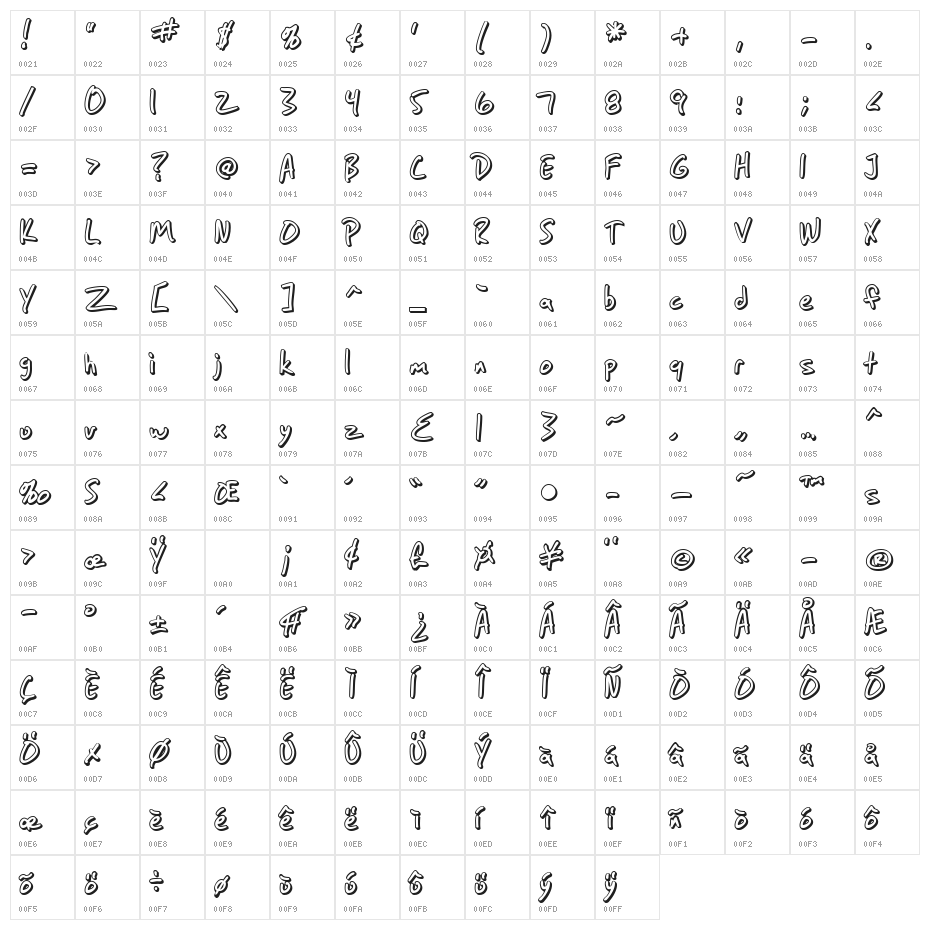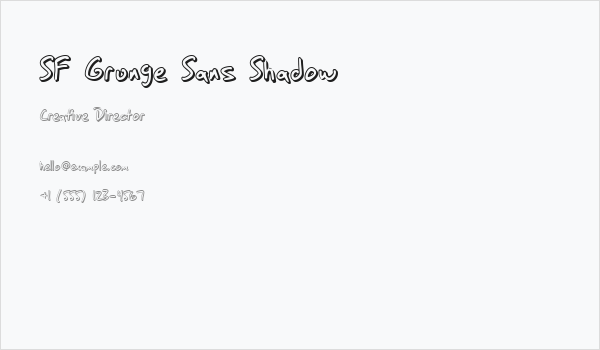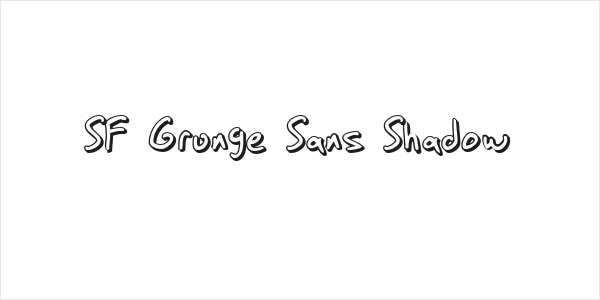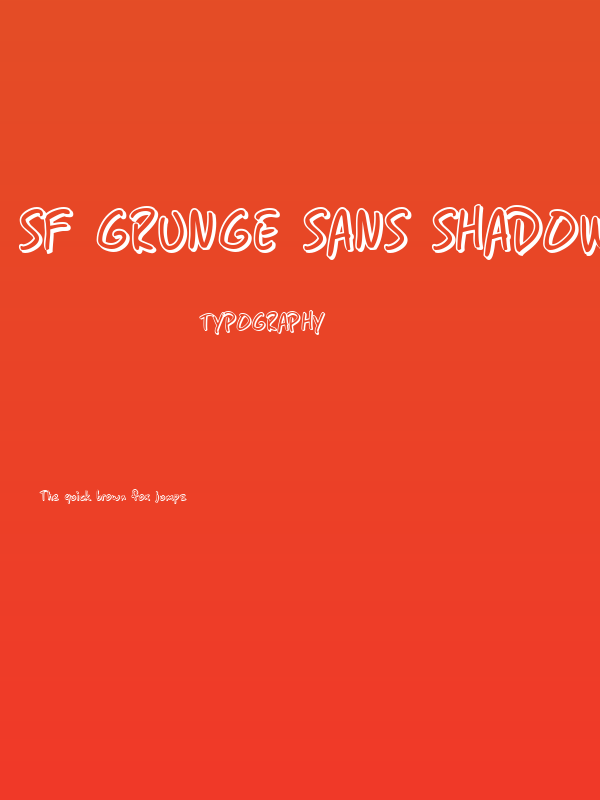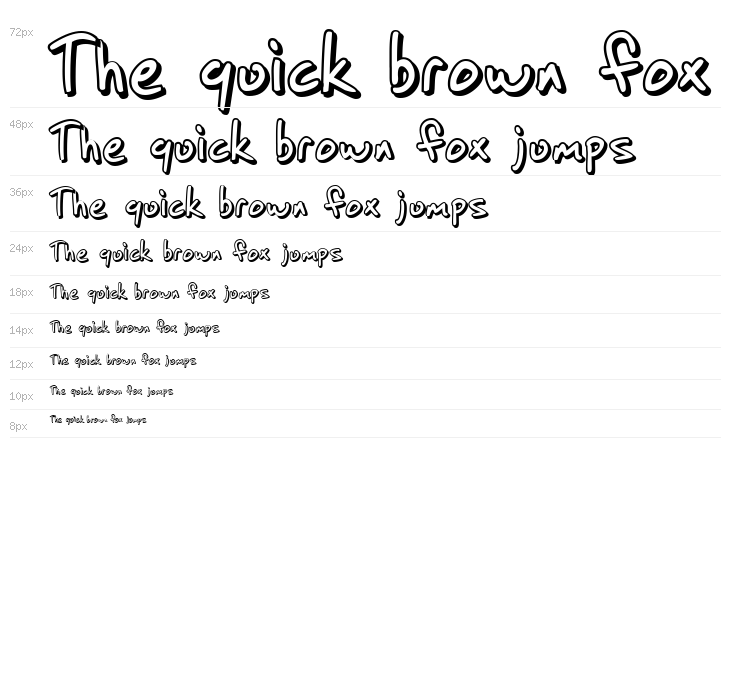
SF Grunge Sans Shadow Font
SF Grunge Sans Shadow Description
This font features a bold, hand-drawn style with a playful and informal appearance. The characters have a shadow effect that adds depth and dimension, making them stand out. The strokes are uneven, giving it a grunge aesthetic, while maintaining legibility. The uppercase and lowercase letters are consistent in style, with rounded edges and a slightly irregular baseline, enhancing its casual vibe. The numerals and special characters follow the same design principles, ensuring a cohesive look across all glyphs.
| Proposed Projects | Ideal for projects that require a casual and artistic touch, such as posters, album covers, or social media graphics. |